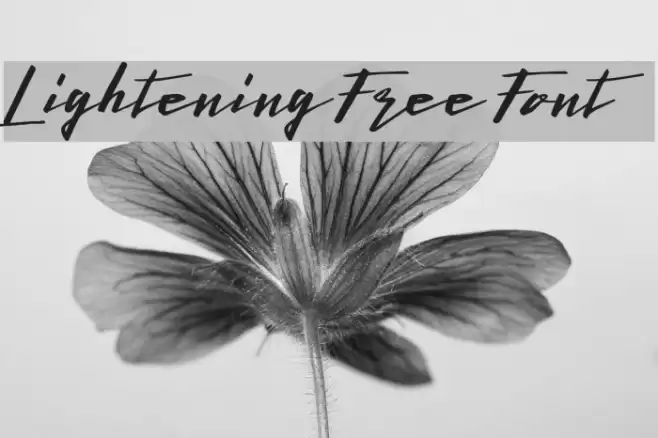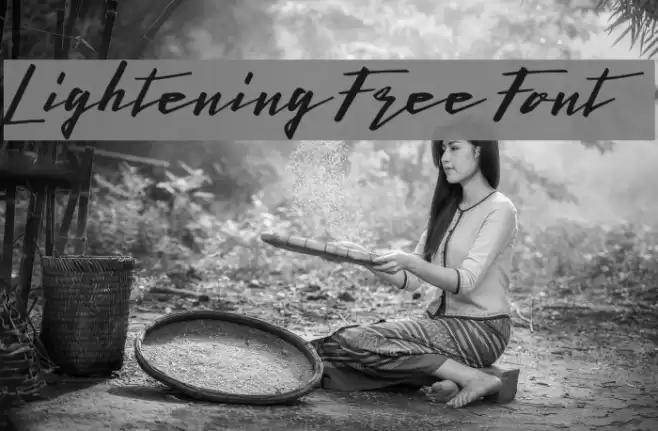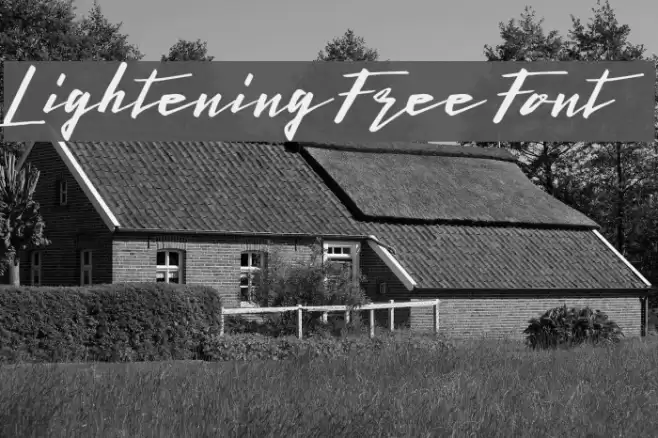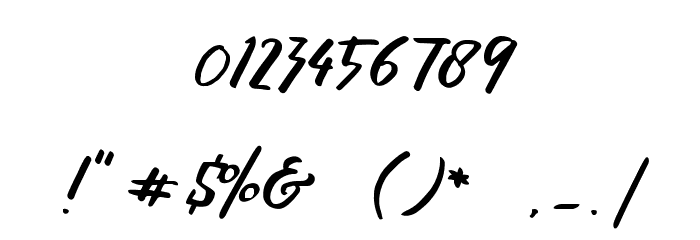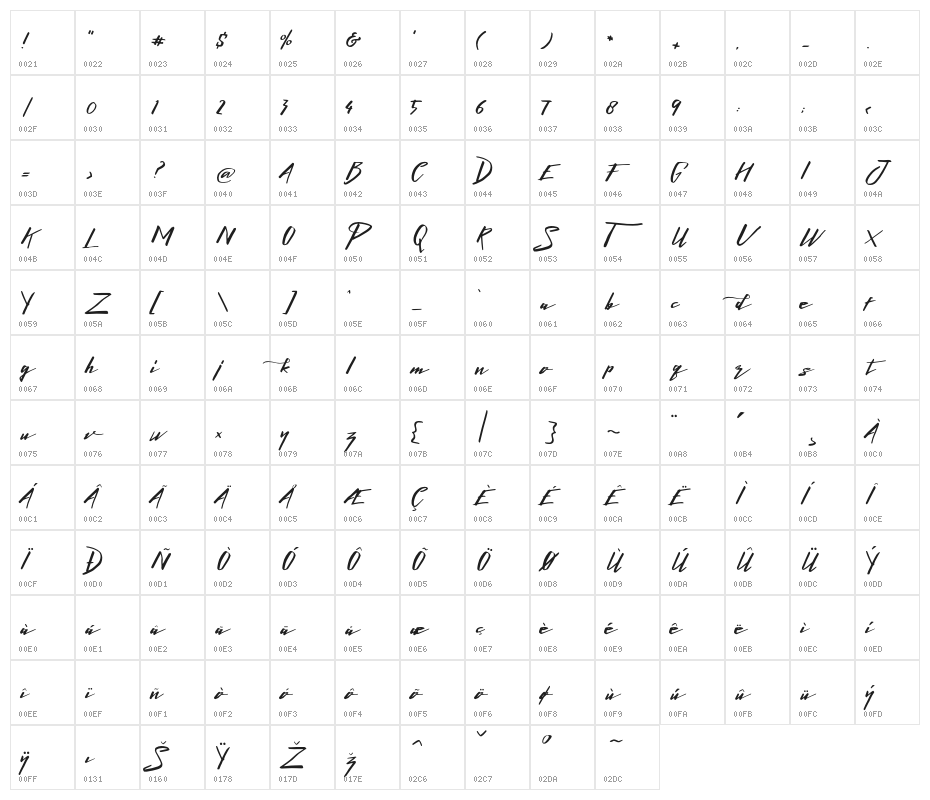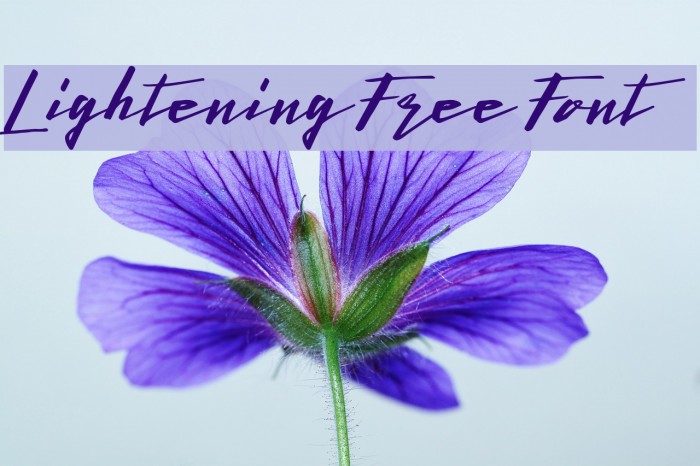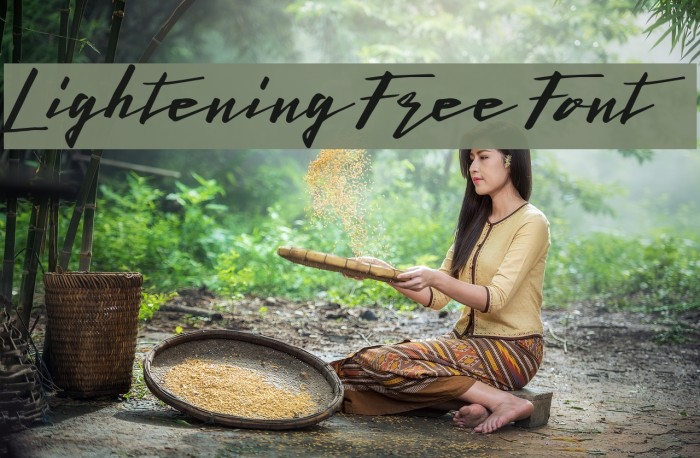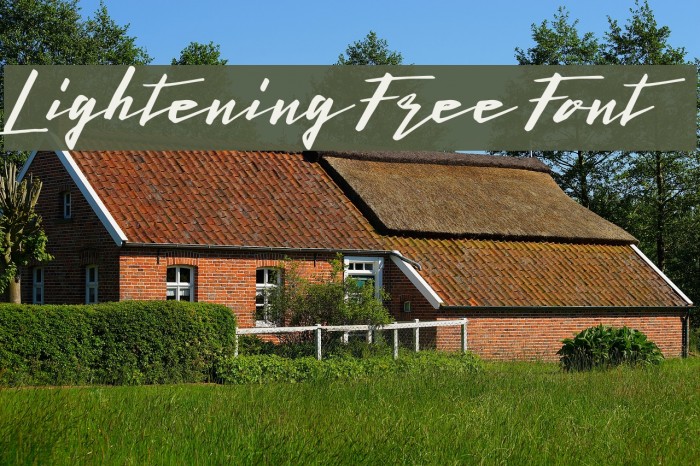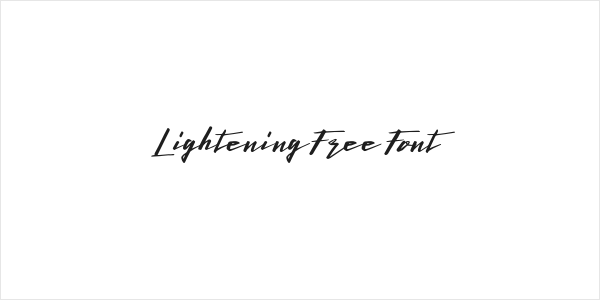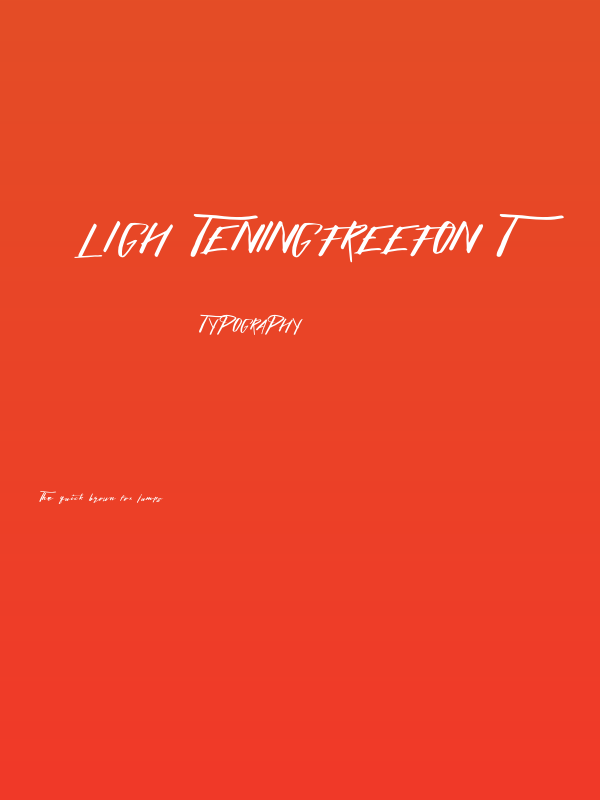
LighteningFreeFont Font
LighteningFreeFont Description
This font features a dynamic and energetic script style, characterized by its bold, sweeping strokes and a sense of movement. The uppercase letters are particularly striking, with a slightly slanted orientation that adds to the overall sense of speed and fluidity. The lowercase letters maintain this energetic feel, with some characters connecting in a cursive manner. The numerals are consistent with the overall style, offering a cohesive look. Special characters are designed with the same flair, ensuring they integrate seamlessly with the text. This font is ideal for projects that require a lively and expressive touch.
A bold, energetic script font with sweeping strokes and dynamic movement from Handwritten fonts.
- Proposed Projects: Ideal for branding, posters, event invitations, and any design needing a lively, expressive touch.